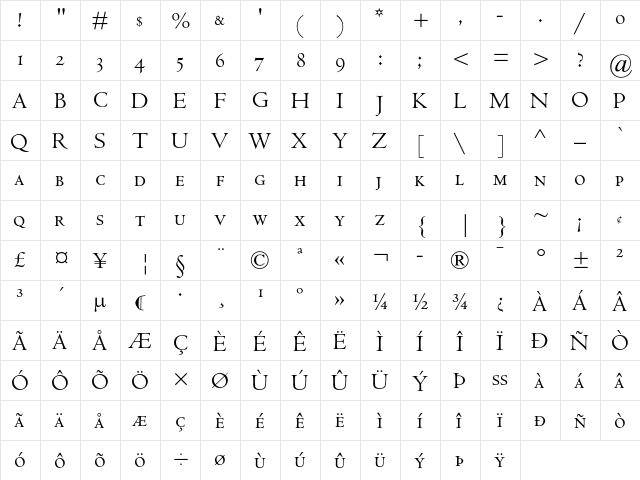
Centaur MT SC
Design Context for Centaur MT Typeface
Centaur MT takes a measured approach to typography — its balanced proportions and neutral character make it a reliable workhorse for both digital and print work.